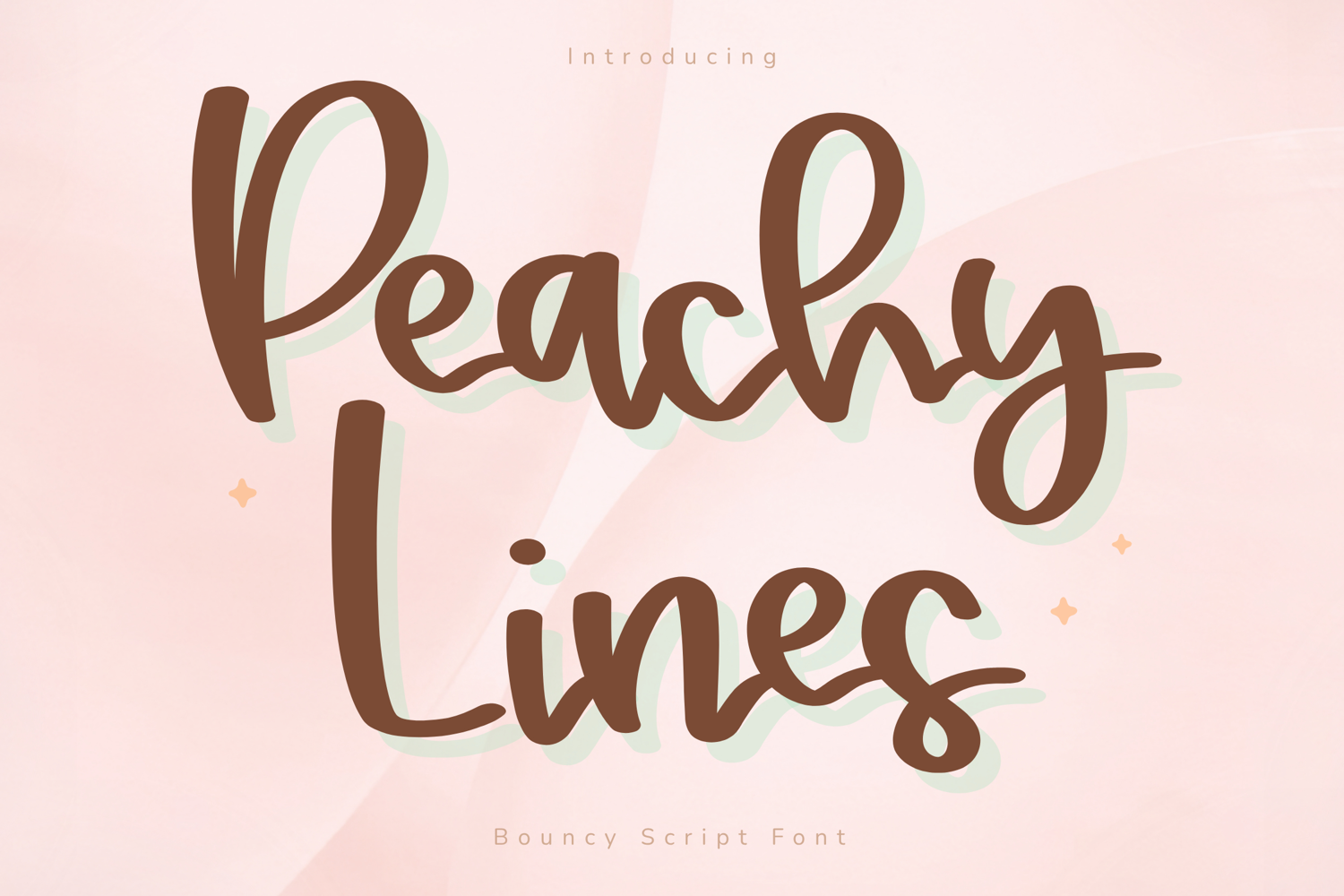
Peachy Lines - Bouncy Script Font
Peachy Lines is a soft and playful bouncy script font with a warm, feminine touch. Designed with smooth curves and gentle flow, this font creates a relaxed and aesthetic handwritten style that feels both modern and approachable.
Perfect for branding, social media, and creative projects, Peachy Lines brings a sweet and stylish personality to any design while staying clean and easy to read.
Key Features:
Uppercase & lowercase letters
Soft bouncy script style
Smooth and clean strokes
Numbers, punctuation & symbols
Perfect For:
Feminine branding
Instagram & social media content
Logos & Brands
Stickers & packaging
Cricut & craft projects
Invitations & cards
Peachy Lines is designed to create a soft, cozy, and aesthetic handwritten feel — perfect for designs that need warmth and personality.